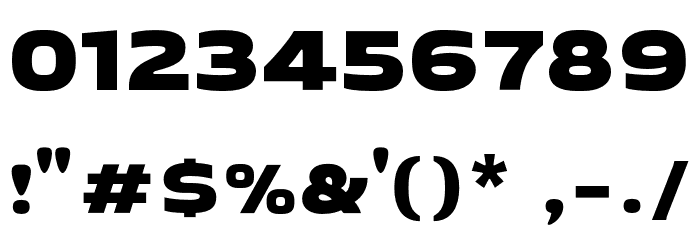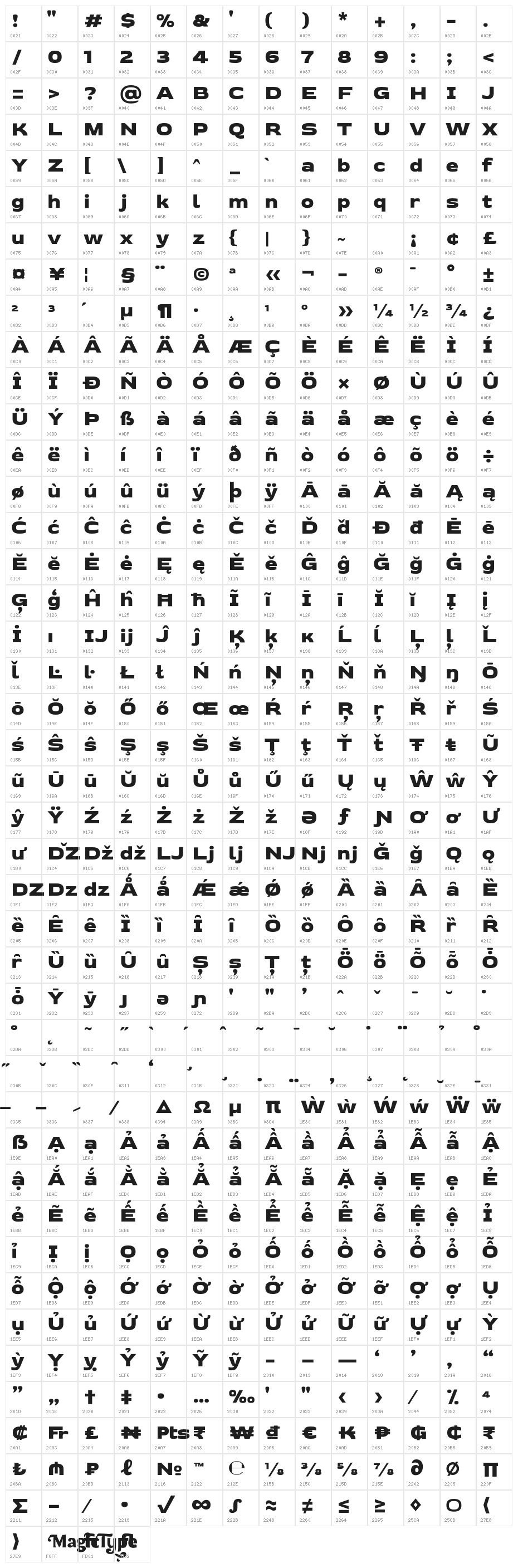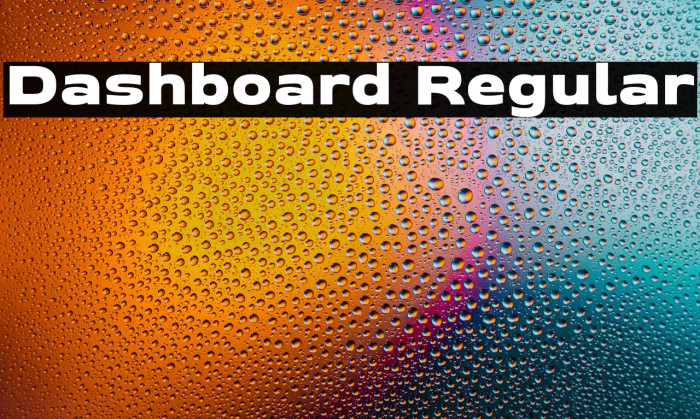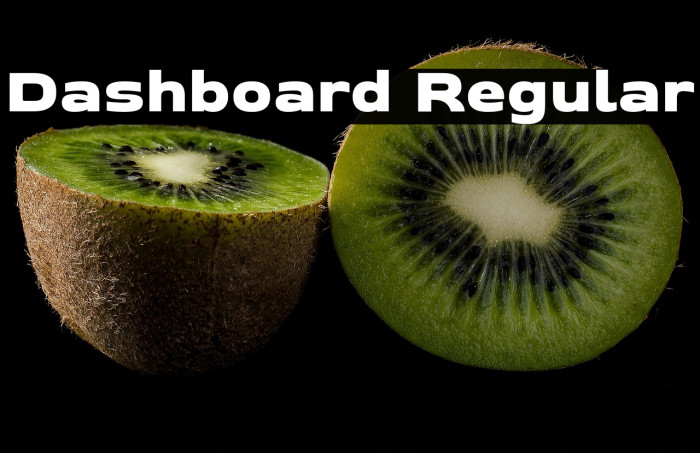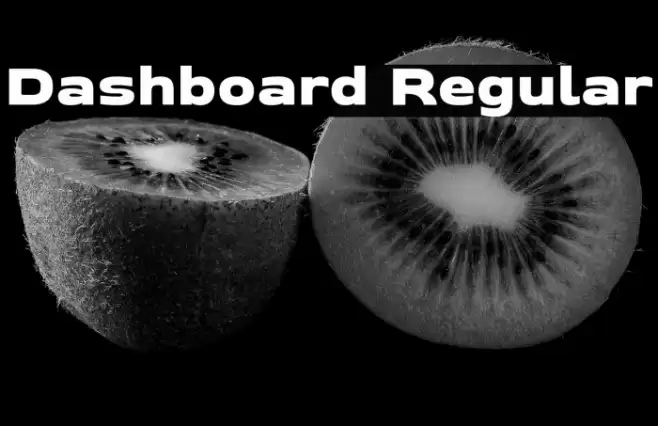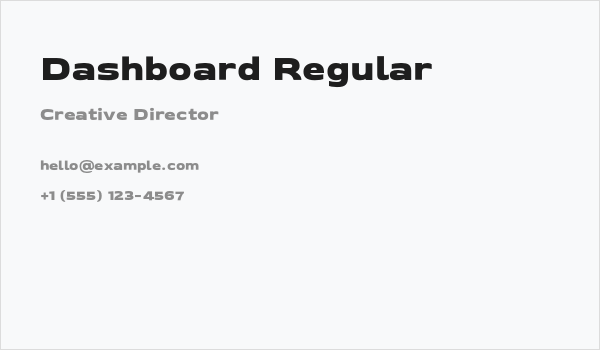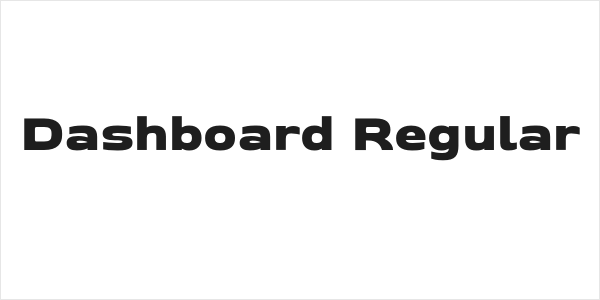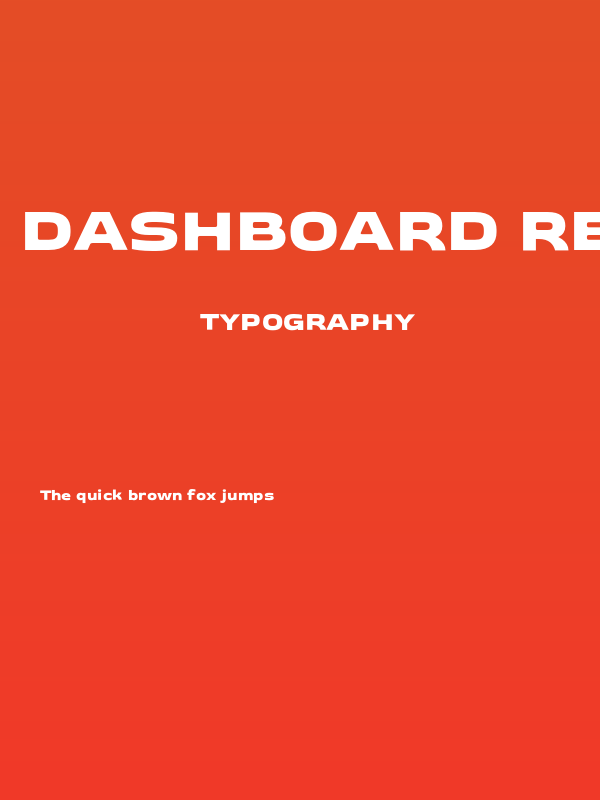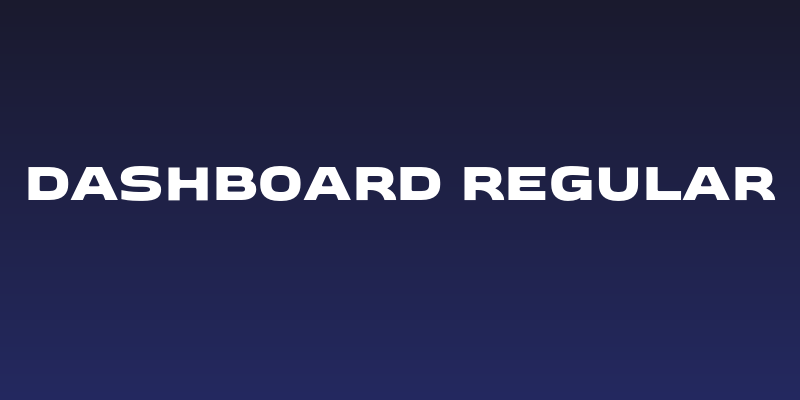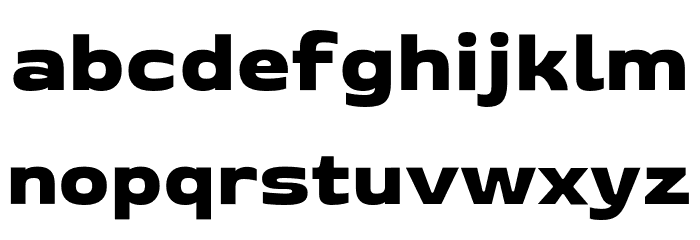
Dashboard Regular Font
Dashboard Regular Description
This font features a bold and assertive design with strong geometric shapes and clean lines. The uppercase letters are uniform in height, creating a cohesive and balanced look. The lowercase letters maintain a similar weight, ensuring readability while adding a touch of modernity. The numerals are robust and easily distinguishable, making them suitable for various applications. Special characters are well-integrated, maintaining the overall aesthetic. The font's boldness and clarity make it ideal for impactful headlines and branding projects.
| Proposed Projects | Ideal for branding, headlines, posters, and digital interfaces where clarity and impact are essential. |